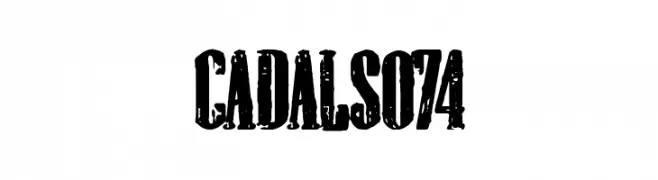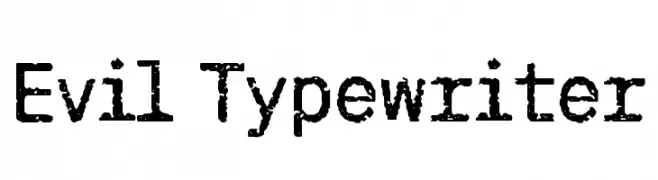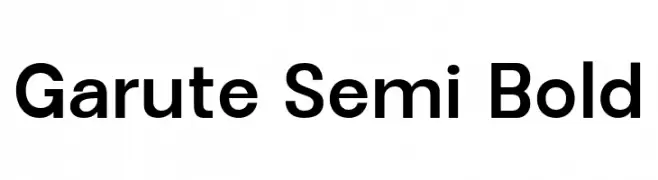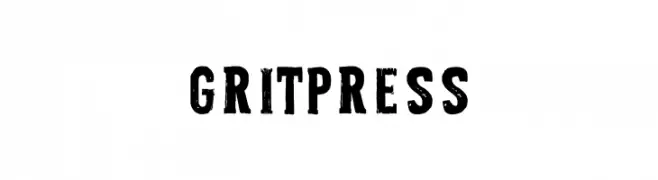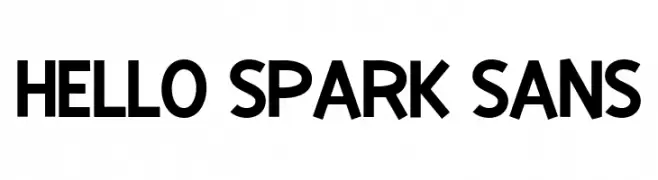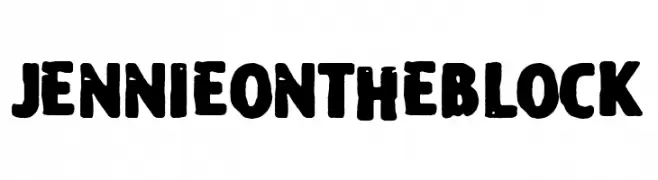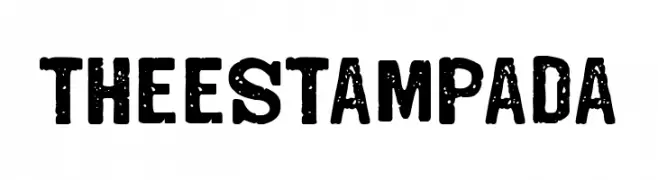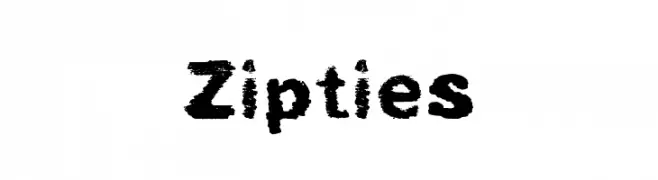
A distressed, typewriter-style font with a grunge, vintage look.
A bold, modern sans-serif font with clean lines and balanced spacing.
A bold, textured font with a distressed, hand-painted appearance.
A bold, distressed font with a rugged, vintage appearance.
A bold, distressed font with a vintage, hand-crafted look.
A bold, distressed font with a gritty, vintage industrial style.
A clean, modern sans-serif font with semi-bold weight and uniform stroke width.
A bold, distressed font with a hand-painted, vintage look.
A bold, textured font with a vintage, handcrafted appearance.
A bold, distressed font with a rugged, grunge-like aesthetic.